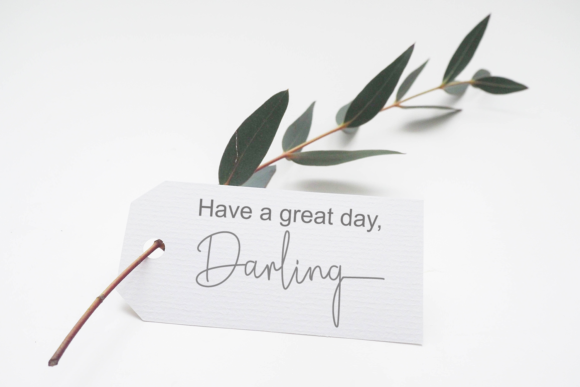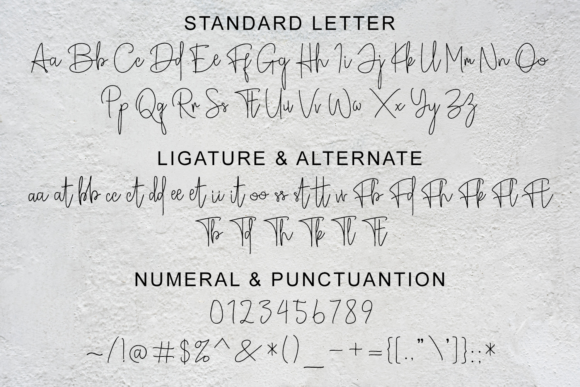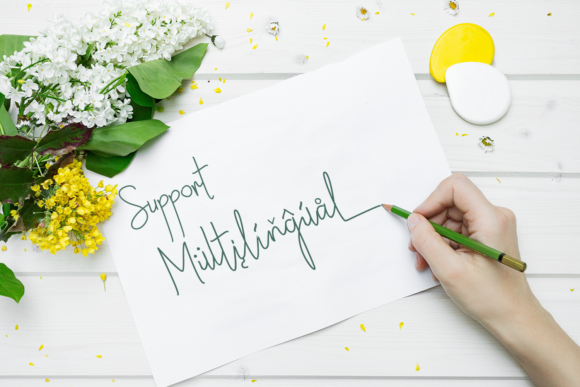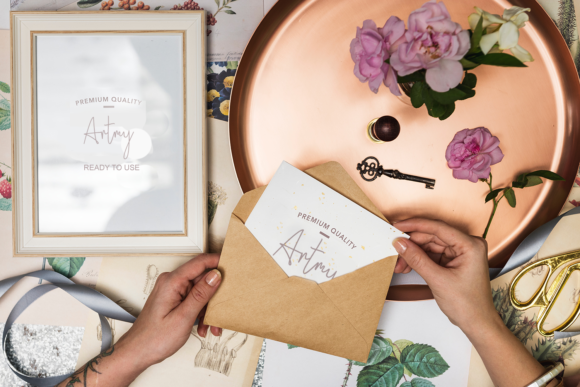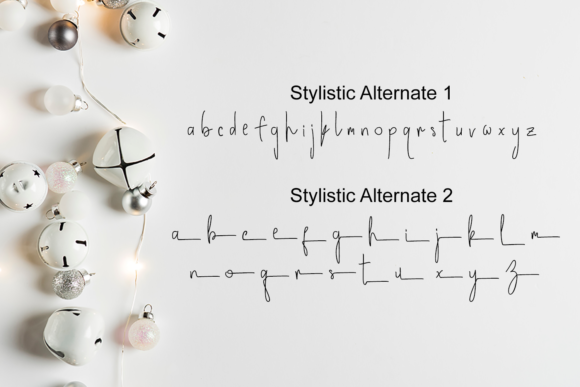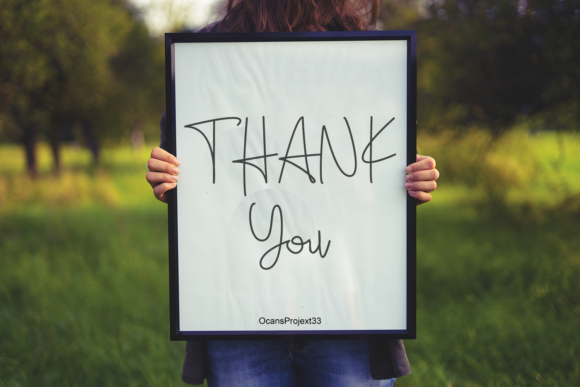
Introducing the Broetown Signature Font: Elevate Your Designs with Elegance
The Broetown Signature is a stylish handwritten script that has taken the design world by storm. It’s perfect for adding a classy, modern, and elegant touch to your designs. Whether you’re a designer, crafter, or DIY enthusiast, this font is sure to become a staple in your creative toolkit.
The Story Behind Broetown Signature
The Broetown Signature font is a carefully crafted script that exudes sophistication and poise. Its unique blend of modern and classic elements makes it an versatile choice for a wide range of design projects. From wedding invitations and branding materials to packaging and digital media, this font is sure to make a lasting impression.
What Makes Broetown Signature So Special?
So, what sets the Broetown Signature font apart from other scripts on the market? Here are just a few reasons why designers and crafters are falling in love with this beautiful font:
- Elegant and Refined: The Broetown Signature font features flowing lines and delicate strokes that give it an air of sophistication and elegance.
- Modern and Fresh: Despite its classic feel, this font has a distinctly modern edge that makes it perfect for contemporary designs.
- Highly Versatile: The Broetown Signature font can be used for a wide range of projects, from formal events and branding to everyday crafting and DIY projects.
- Easy to Read: Unlike some scripts that can be difficult to read, the Broetown Signature font is clear and legible, making it perfect for use in body text or headlines.
How to Use the Broetown Signature Font in Your Designs
Ready to start using the Broetown Signature font in your designs? Here are a few ideas to get you started:
- Wedding Invitations: Add a touch of elegance to your wedding stationery with the Broetown Signature font.
- Branding Materials: Use this font to create sophisticated business cards, letterheads, and packaging.
- Digital Media: The Broetown Signature font is perfect for use in social media graphics, blog headers, and website designs.
- Crafting and DIY Projects: Add a personal touch to your crafting and DIY projects with this beautiful script font.
Tips and Tricks for Working with the Broetown Signature Font
Here are a few tips and tricks to help you get the most out of the Broetown Signature font:
- Pair it with a Sans Serif Font: For a classic look, pair the Broetown Signature font with a clean sans serif font.
- Experiment with Colors: This font looks beautiful in a range of colors, from metallics to pastels.
- Use it for Headlines and Titles: The Broetown Signature font is perfect for use in headlines and titles, where its elegant script lines can really shine.
The Broetown Signature font is a beautiful and versatile script that is sure to become a favorite among designers and crafters. Its elegant and refined lines make it perfect for adding a touch of sophistication to your designs. Whether you’re working on a wedding invitation, branding materials, or a DIY project, this font is sure to impress. So why wait? Download the Broetown Signature font today and start elevating your designs with elegance!